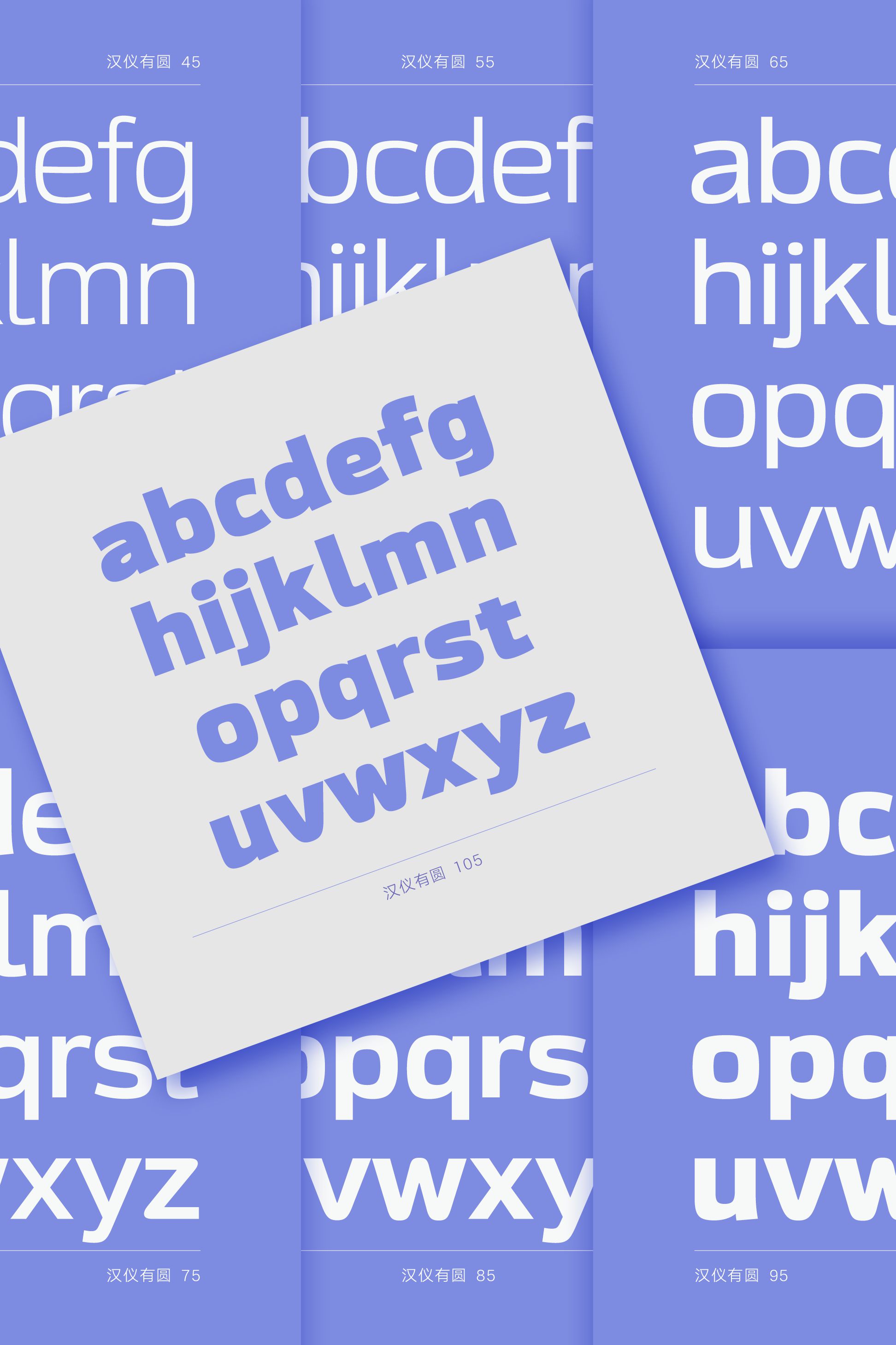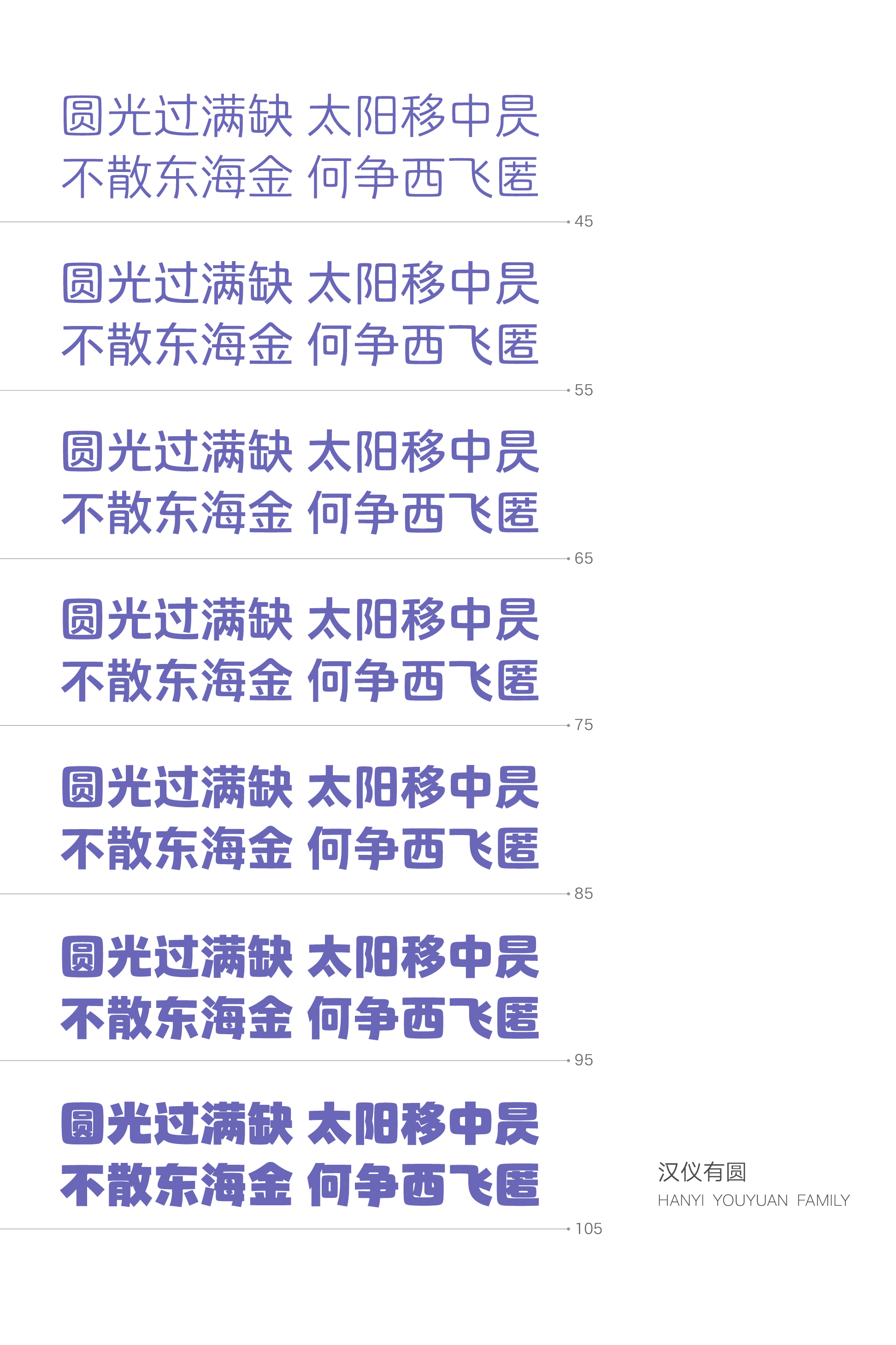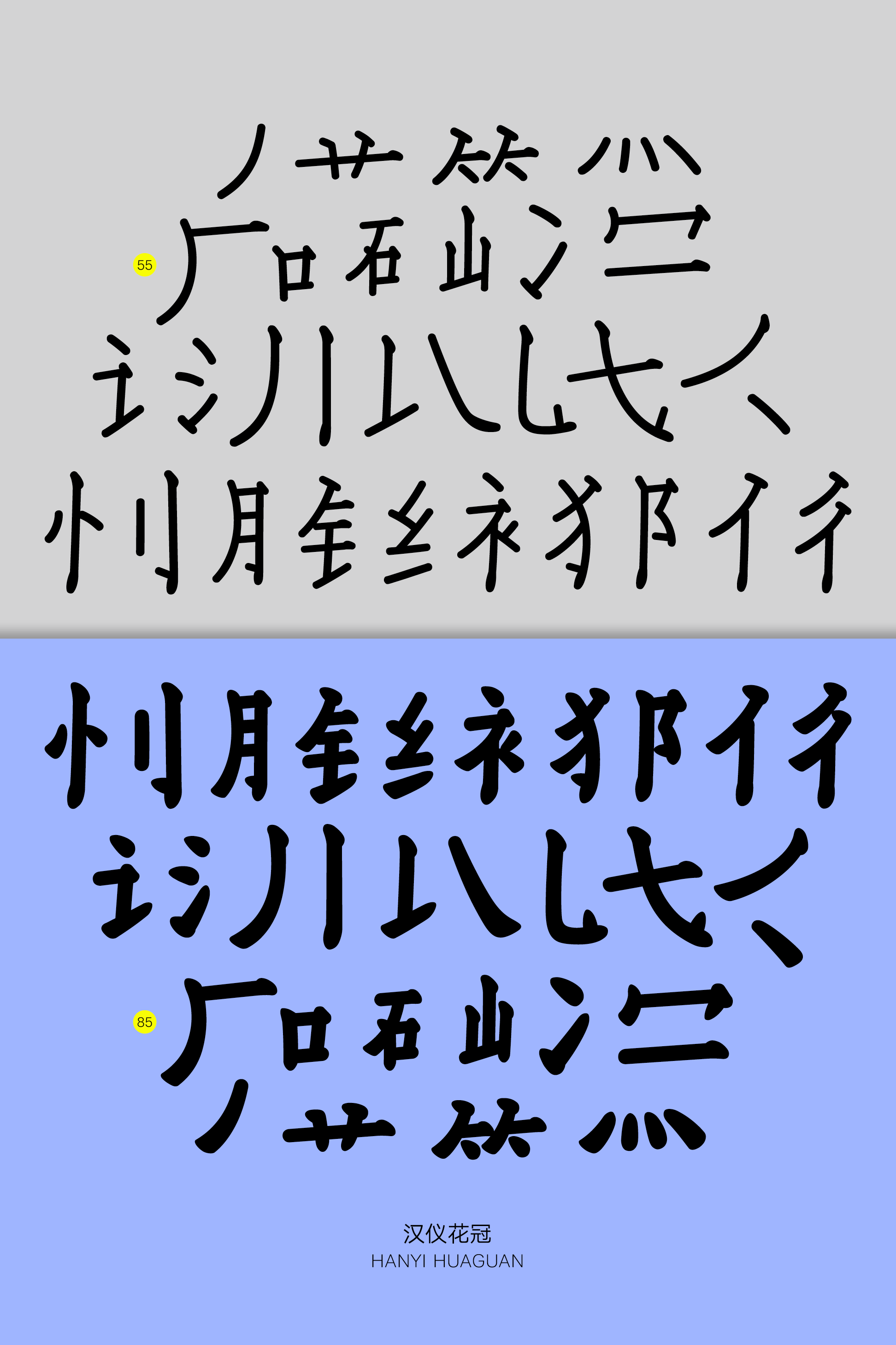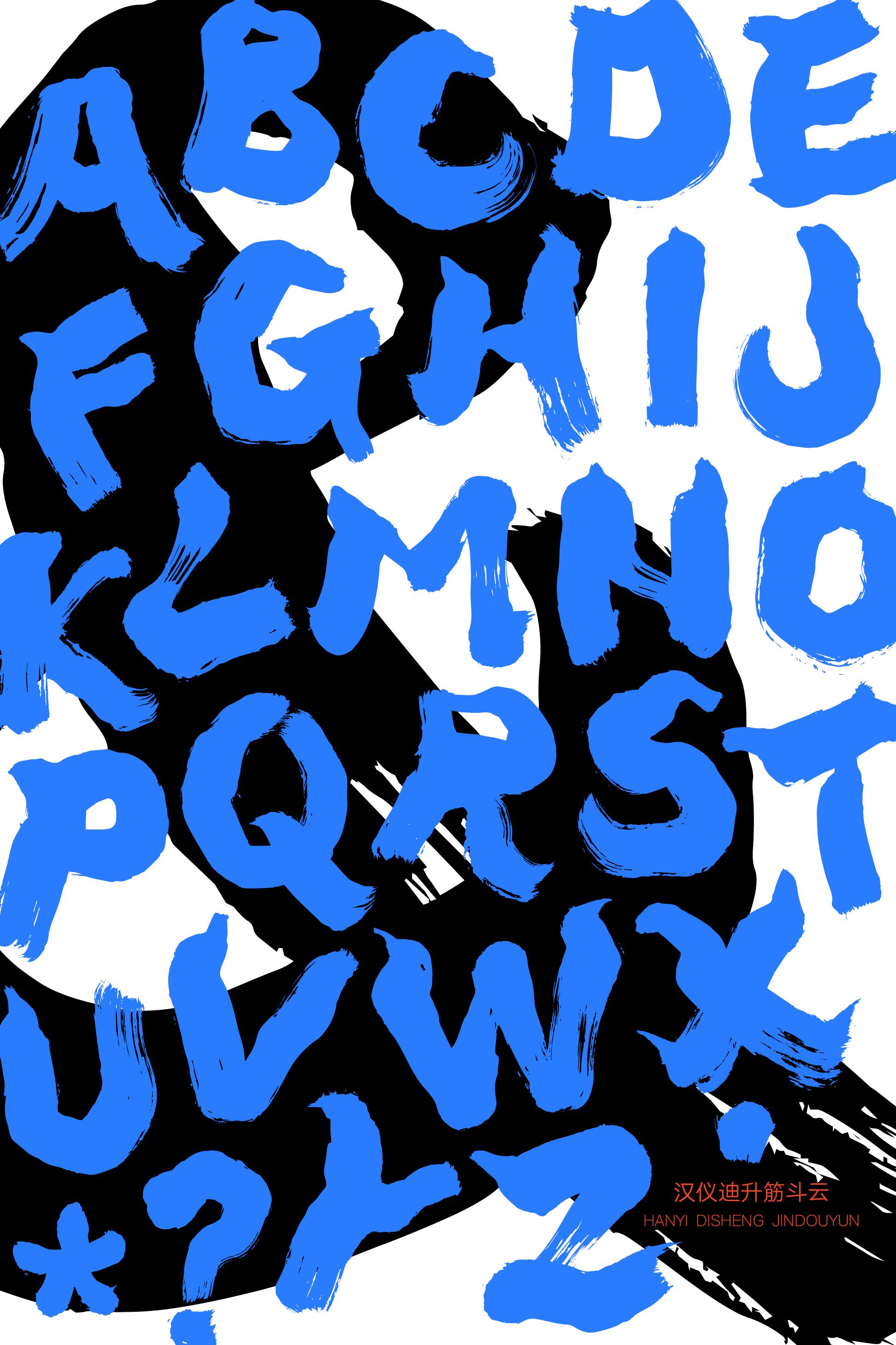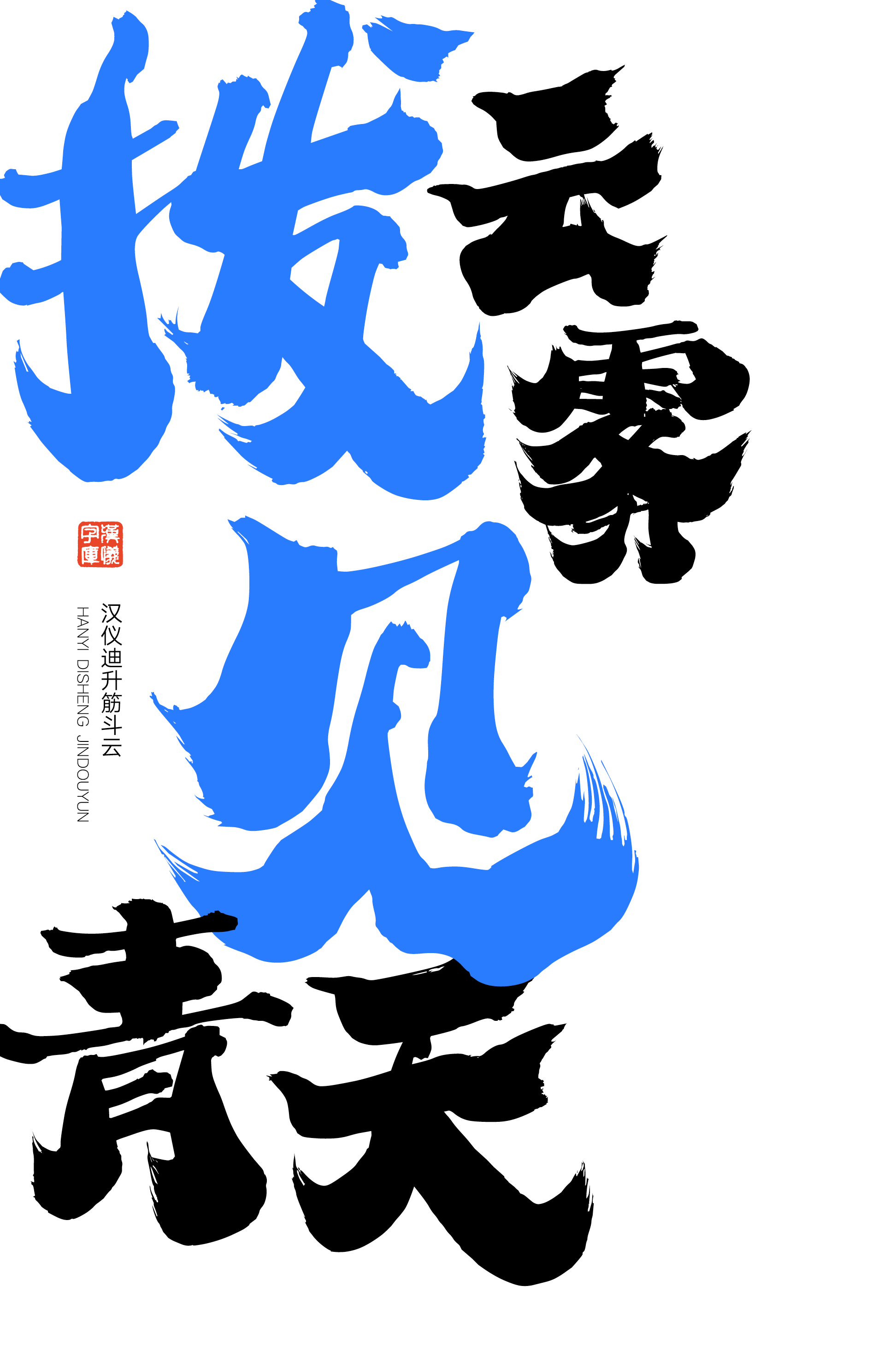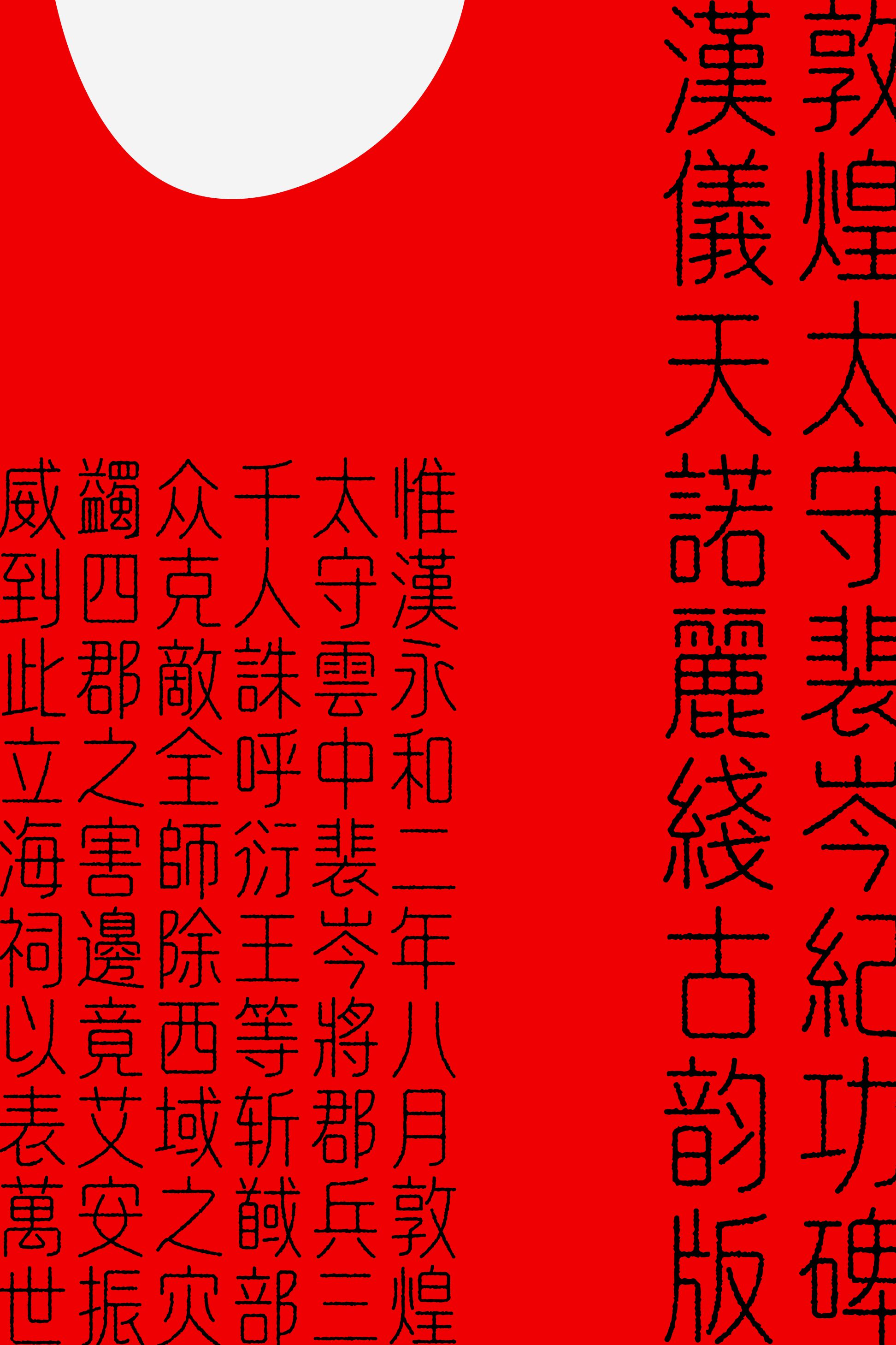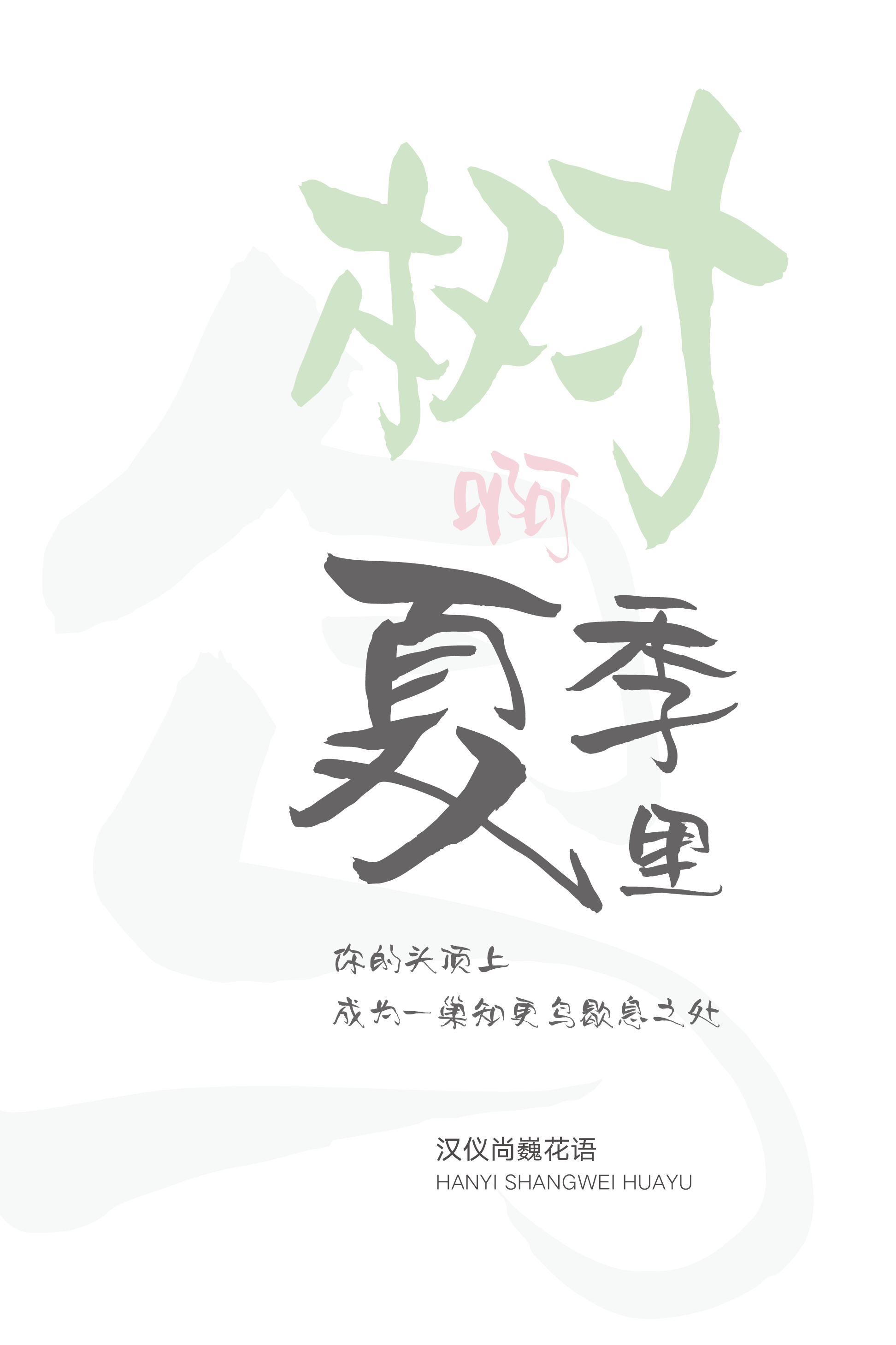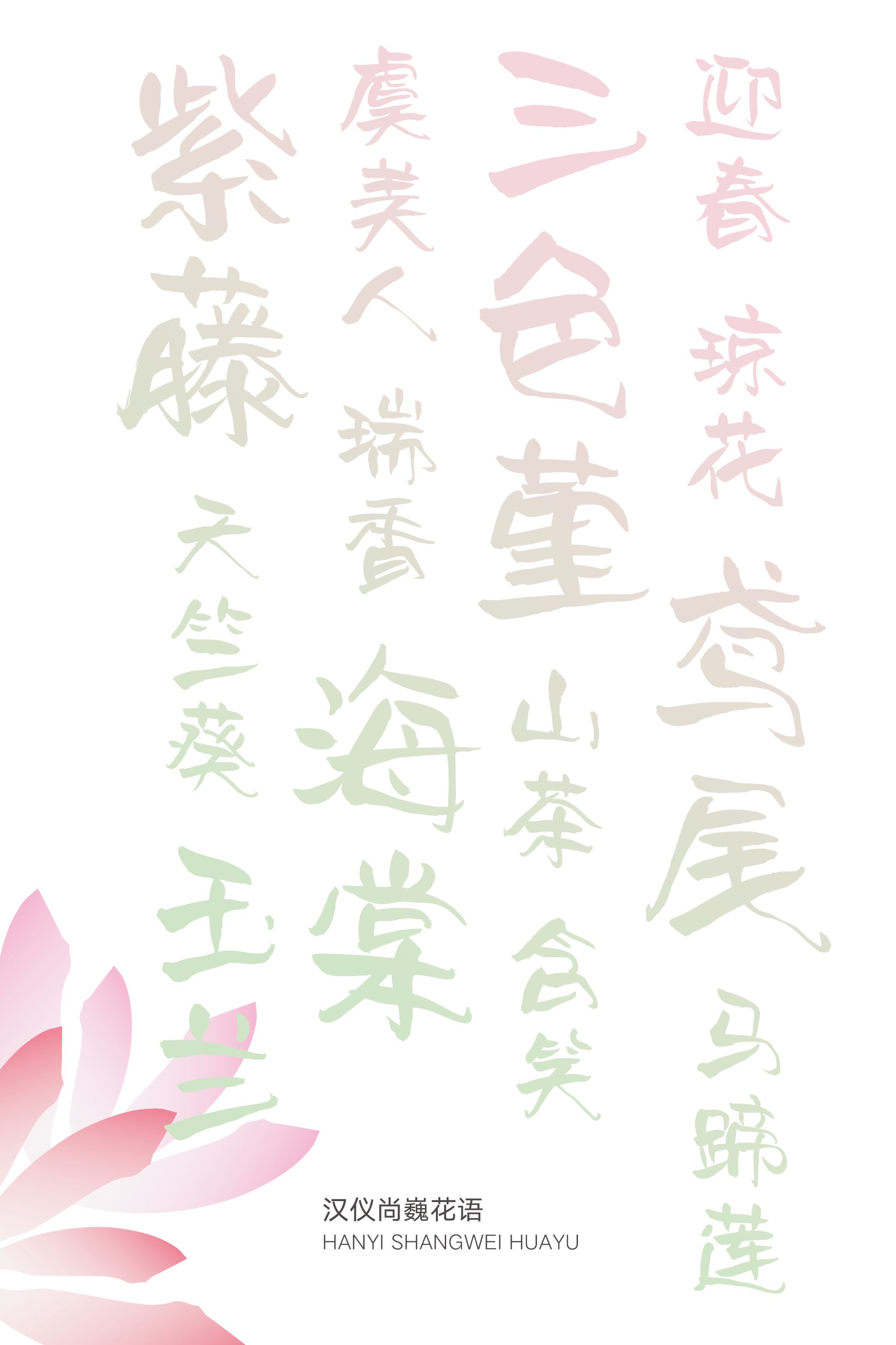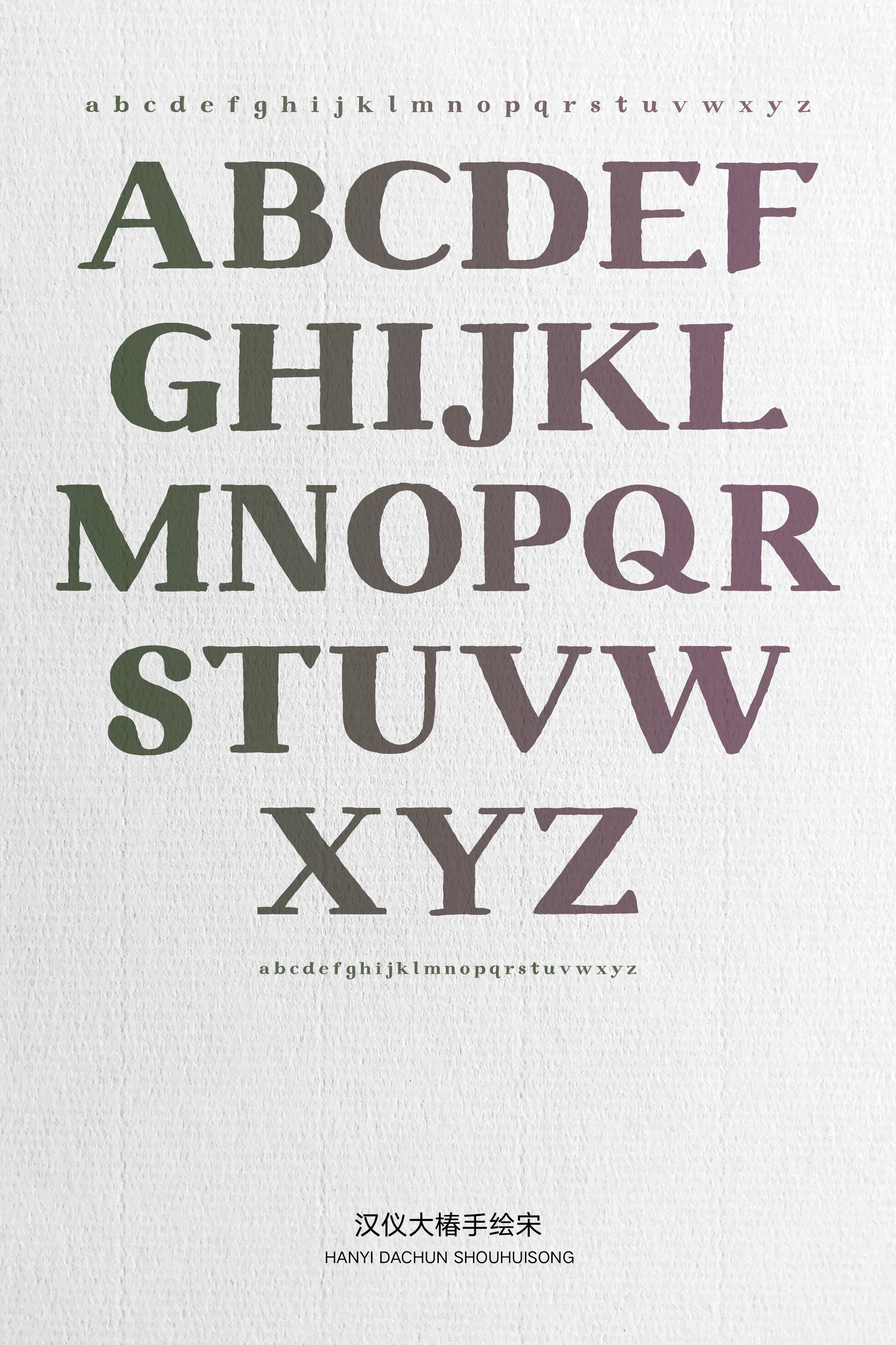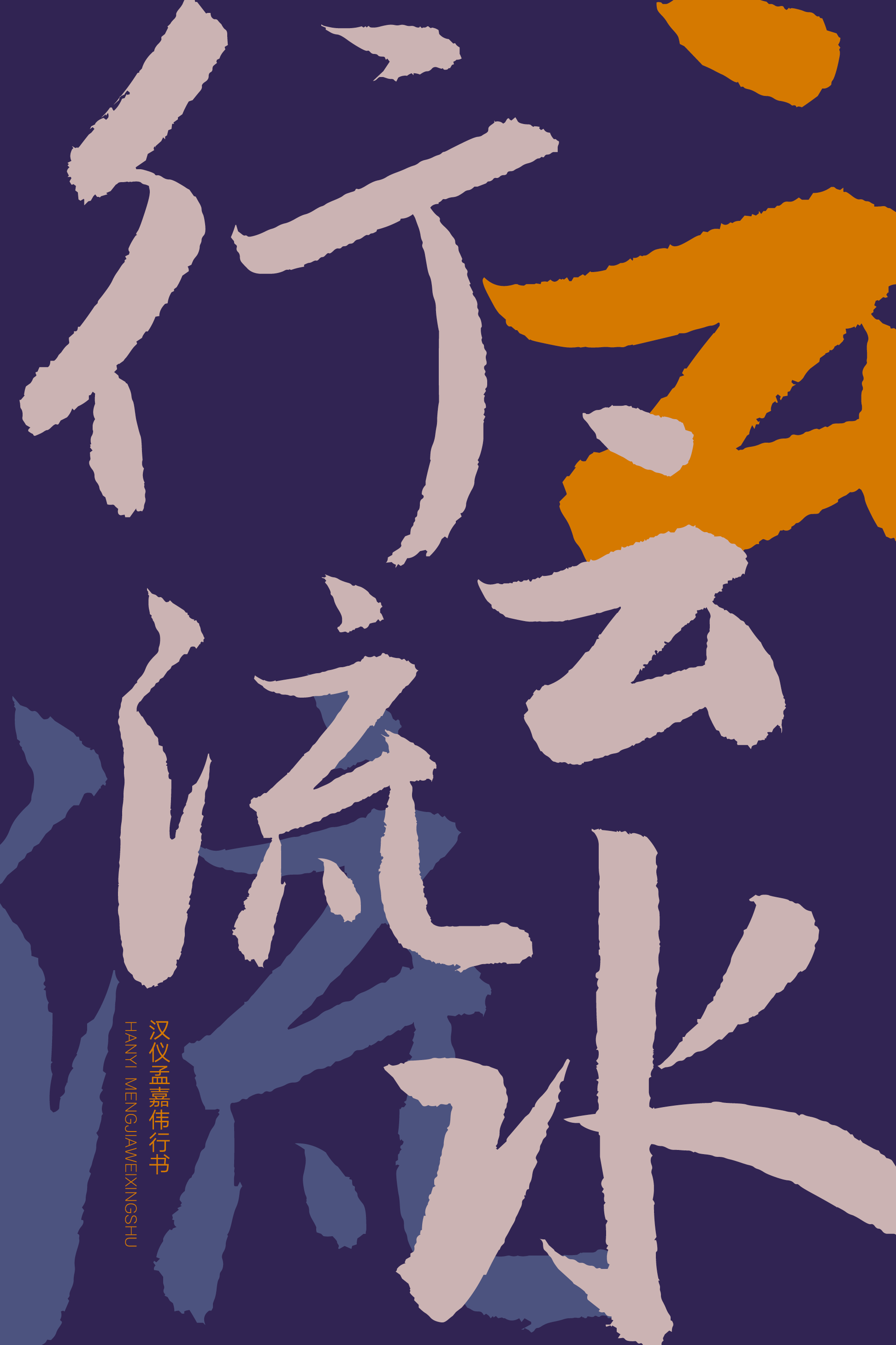
Hanyi Fonts custom type, licensing, and case index.
What Hanyi Does
Hanyi is China's leading type foundry. The studio designs custom brand typefaces, multi-script font systems, UI and product fonts, cultural heritage typefaces, and commercial font libraries for licensing. Supported scripts include Chinese, Latin, Japanese, Korean, Arabic, Cyrillic, Greek, Devanagari, and more.
Custom Typeface Case Studies
Companies and institutions using custom fonts designed by Hanyi.
WeChat WeixinTi Brand Renewal A custom typeface that merges WeChat's lifestyle identity with the classic Heiti tradition, pairing relaxed Chinese forms with Latin, Cyrillic, figures, and punctuation.
OPPO OPPO Sans Brand Renewal A variable font family with balanced, elegant structures, designed to reinforce OPPO's pure, sophisticated product identity across screens and brand surfaces.
DingTalk JinBuTi Brand Renewal A display-oriented custom typeface with a slight forward tilt, soft exterior corners, and structured inner forms that express DingTalk's open, progressive workplace-collaboration philosophy.
Ping An Bank PingAnNuanChengTi Brand Renewal A warm handwritten advertising typeface that turns Ping An Bank's signature orange and service ethos into a softer, more personable financial brand voice.
Alibaba AlibabaPuHuiTi Global Expansion A bespoke corporate family for Alibaba Group, built with a slightly condensed structure and higher visual center to support a modern, versatile global identity.
Xiaomi MiSans Global Global Expansion A large multilingual variable family for Xiaomi HyperOS, covering 20+ writing systems, 600+ languages, and more than 100,000 glyphs.
Shokz Shokz Sans Global Expansion A Latin typeface for the sports headphone brand, combining squared proportions, approachable rhythm, and Display/Text variants for titles and body copy.
Amorepacific Arita Heiti Global Expansion A custom Chinese typeface for the Korean beauty group, harmonizing with Arita Sans and Arita Buri while expressing refined Asian beauty in mainland China.
Huawei HarmonyOS Sans · HarmonyOS Symbol User Experience Enhancement A product-system type family supporting 105 languages, paired with China's first full symbolic font set to improve consistency, usability, and creativity.
NIO BlueSky User Experience Enhancement A redesigned automotive type system split into Display and Text series, improving legibility and readability across in-vehicle infotainment scenarios.
IM IMSans User Experience Enhancement A custom automotive type family with separate series for brand communication and cockpit interfaces, balancing comfort, order, readability, and a futuristic technology feel.
Tencent Portfolio Tencent Westock Sans User Experience Enhancement A financial-app typeface with tabular figures, wider spacing, and warm visual details that improve small-size readability and data interaction.
Hangzhou National Archives HYWenRunSongYun Cultural Heritage A Song Dynasty engraving revival developed for the Hangzhou Branch of the National Archives of Publications and Culture, based on Zhou Mi's historical poetry collection.
White Rabbit HYDaBaiTu Cultural Heritage A custom typeface for the iconic candy brand, preserving classic design DNA while creating a contemporary symbol of Chinese heritage.
Shanghai Library STDongGuanTi Cultural Heritage A digital-reading font family shaped around the library's scholarly spirit and 3i transformation strategy: Intelligent, Inclusive, and Interconnected.
Songyang County HYSongYangTi Cultural Heritage China's first typeface created for a county-level place brand, inspired by Songyang's traditional street signs and built to carry a local identity across civic touchpoints.
Alibaba Public Welfare AlibabaHYShunLiReTuTi Social Responsibility A calligraphy-inspired typeface for Alibaba's rural revitalization program, merging semi-cursive elegance with monumental brush energy.
World Alzheimer's Day HYAlzheimer Social Responsibility A typeface that visualizes cognitive decline through simplified, reduced, and distorted strokes while remaining recognizable and emotionally direct.
Reference News HYCanKaoXiaoXiXianQuTi Social Responsibility A calligraphy-inspired news typeface released for standardized, real-time, efficient information dissemination by media organizations.
Huxiang Culture HYBaManTi Social Responsibility China's first typeface dedicated to Huxiang regional culture, using bold, sharp, square-shaped characters to preserve and celebrate local heritage.